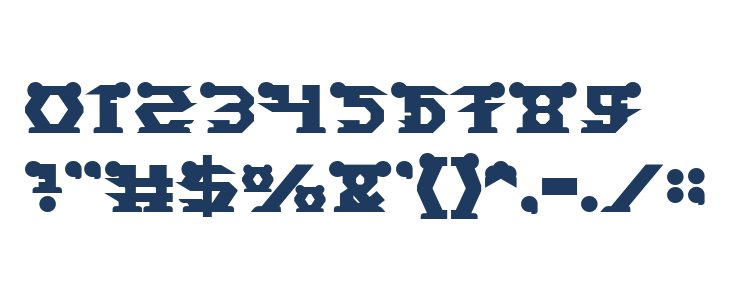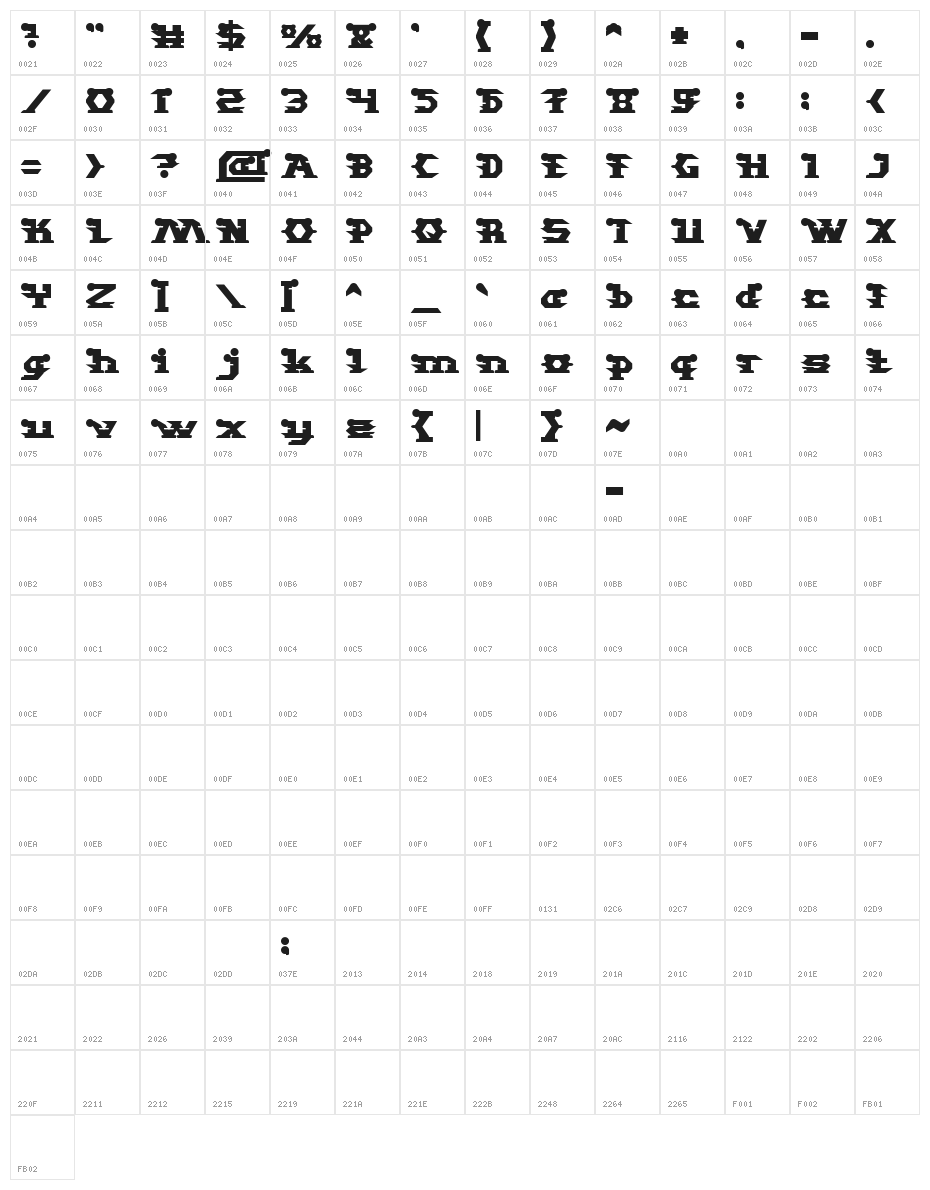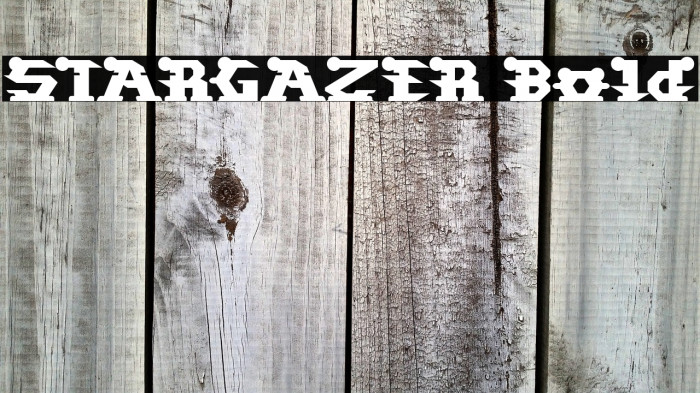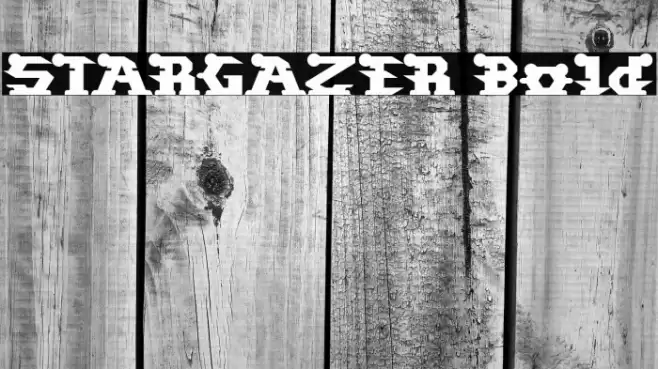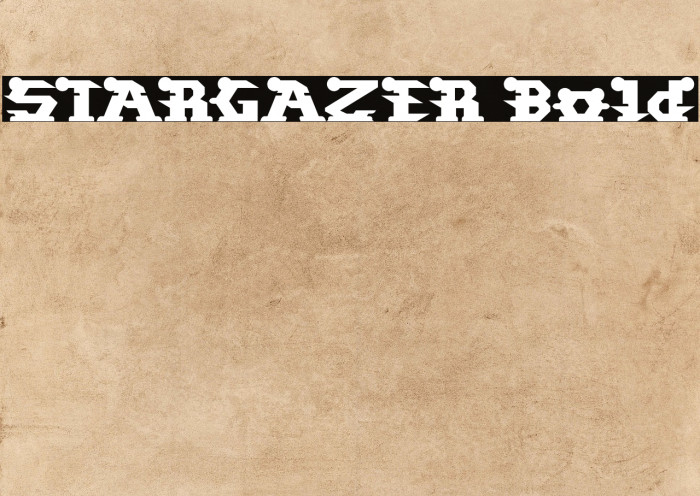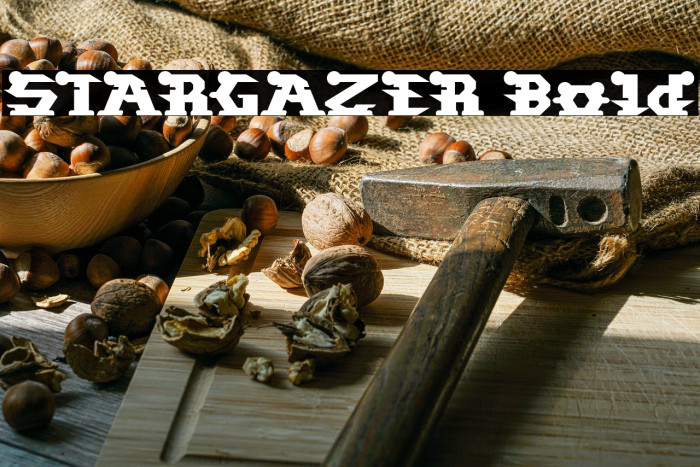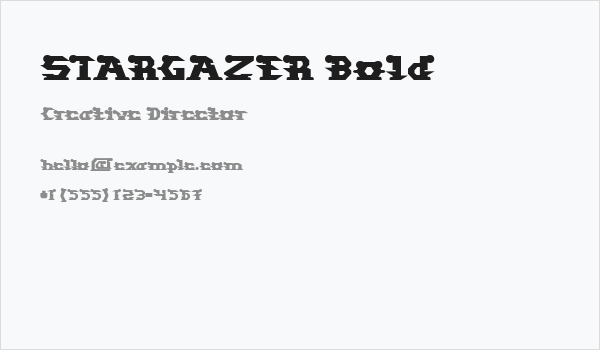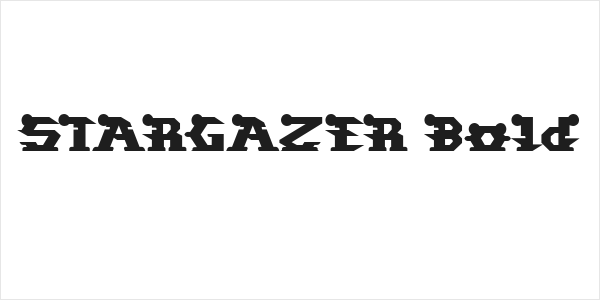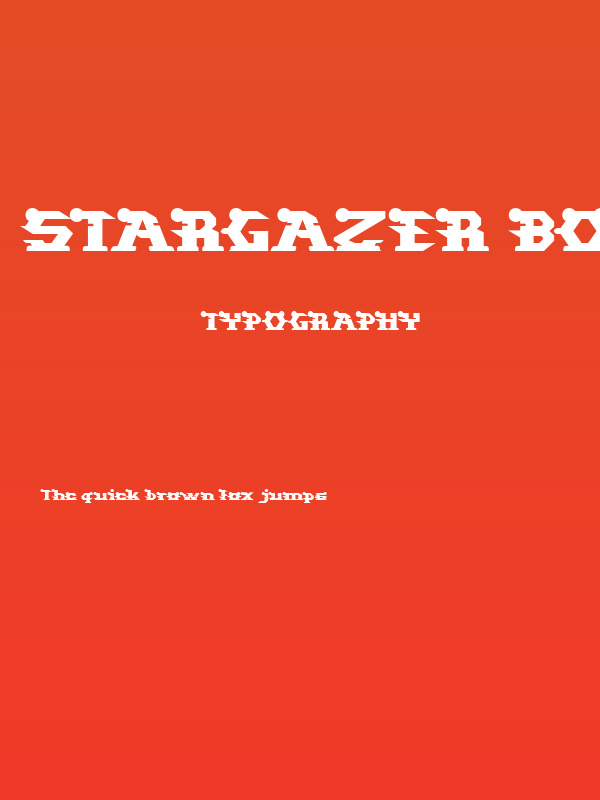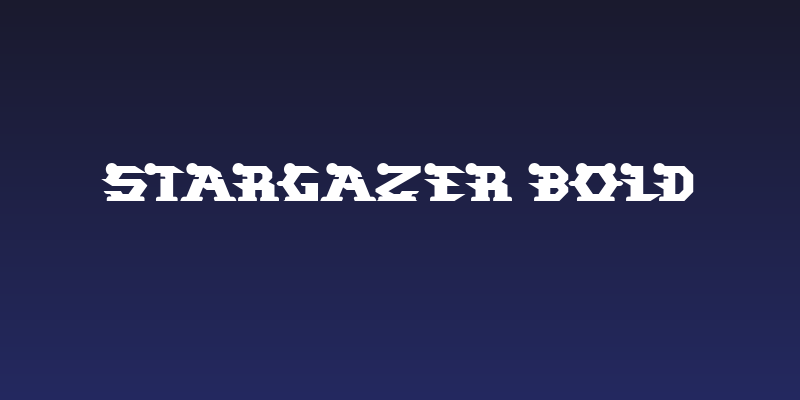
STARGAZER Bold Font
STARGAZER Bold Description
This bold and striking font features a unique, futuristic design with sharp angles and geometric shapes. Each character is crafted with a distinct style that combines elements of modern and sci-fi aesthetics. The uppercase letters are particularly bold, with strong lines and a commanding presence. The lowercase letters maintain the same angular design, ensuring consistency across the typeface. Numbers and special characters are equally bold and stylized, making this font suitable for attention-grabbing headlines and creative projects. The overall appearance is both modern and edgy, perfect for projects that require a bold statement.
| Overall Style | Modern, Futuristic |
| Proposed Projects | Ideal for sci-fi themed designs, video game titles, posters, and branding that requires a modern edge. |